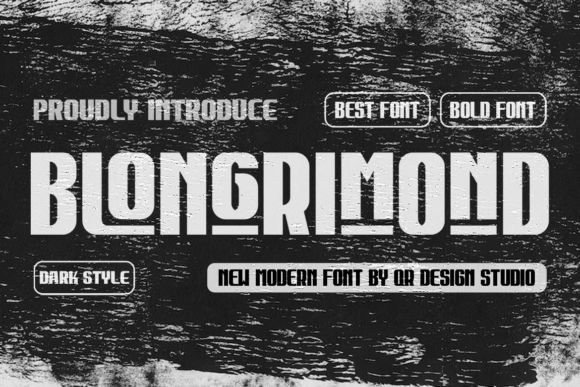
The Blongrimond Font: A Bold and Authentic Display Font for Your Creative Projects
I’ll never forget the design struggle I faced while working on a sports branding project. My client wanted a font that was bold, authentic, and could stand out in various contexts. After hours of searching, I stumbled upon the Blongrimond Font, and it was love at first sight! ✨ In this article, I’ll share my experience with this amazing font, its features, and how to make the most of it in your creative projects.
An Honest Review of Blongrimond Font
• ✅ Bold and Authentic: Blongrimond Font is perfect for making a statement with its bold and authentic style.
• ✅ Versatile: This font is suitable for various branding projects, including logos, sports, and more.
• ✅ Easy to Read: Despite being bold, the font remains easy to read, even in smaller sizes.
• ✅ Unique Character: Blongrimond Font has a distinct personality that sets it apart from other fonts.
While Blongrimond Font is an excellent choice, there are a few things to keep in mind: 🤔
• ⚠️ Limited Use in Body Text: Due to its bold nature, Blongrimond Font might not be the best choice for body text or lengthy paragraphs.
• ⚠️ Requires Attention to Kerning: As with any font, pay attention to kerning to ensure the text looks balanced and visually appealing.
A Practical Guide to Using Blongrimond Font
The Designer Inspiration Behind Blongrimond Font
The story behind Blongrimond Font begins with a fictional designer named Alex, who aimed to create a bold and authentic font for sports branding. Alex drew inspiration from classic athletic typography and modern design trends to craft a unique font that would stand out in various contexts. 💡
Q: What is Blongrimond Font best used for?
A: Blongrimond Font is ideal for bold and authentic display designs, such as logos, sports branding, and headings.
Q: Can I use Blongrimond Font for body text?
A: While possible, Blongrimond Font’s bold nature makes it less suitable for lengthy body text. It’s best used for headings and titles.